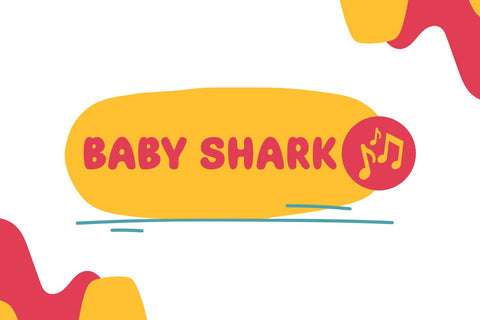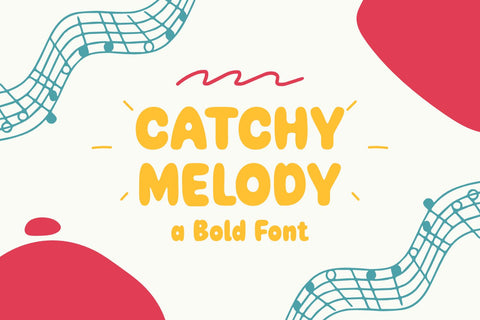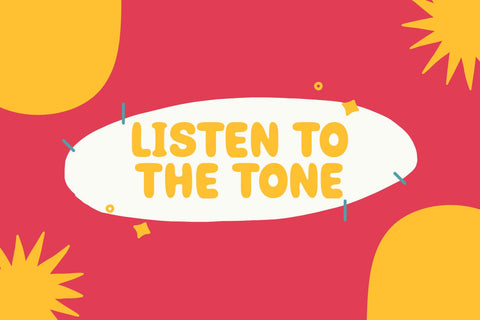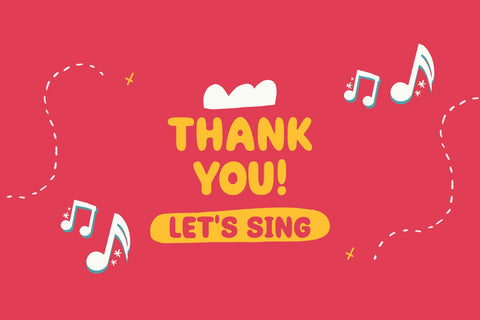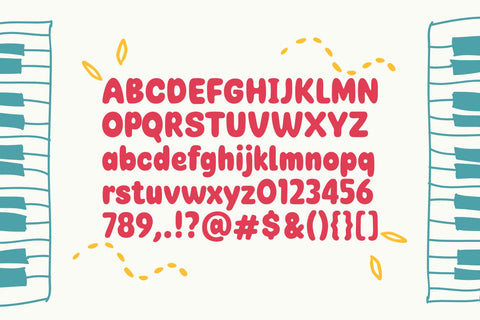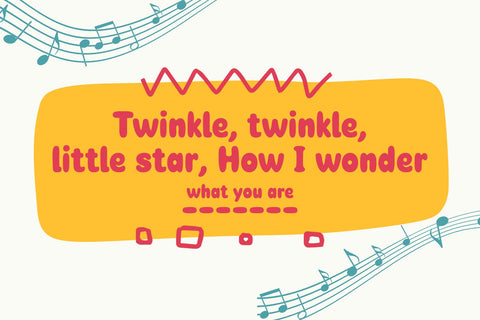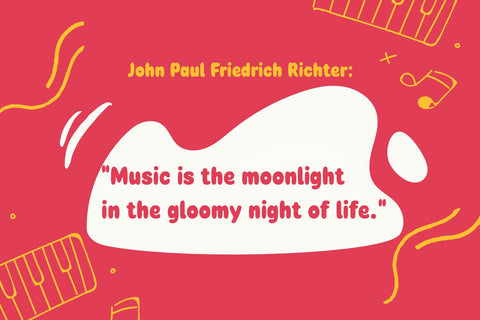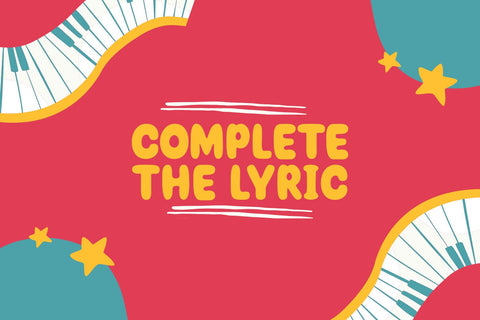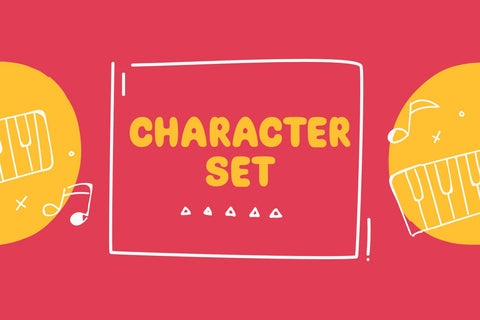
Catchy Melody - a Bold Font
Catchy Melody is a childish, bold, easy-to-read display font that conveys impeccable friendliness. Whether you’re using it for crafts, digital design, presentations, or making greeting cards, this font has the potential to become your favorite go-to font, no matter the occasion!